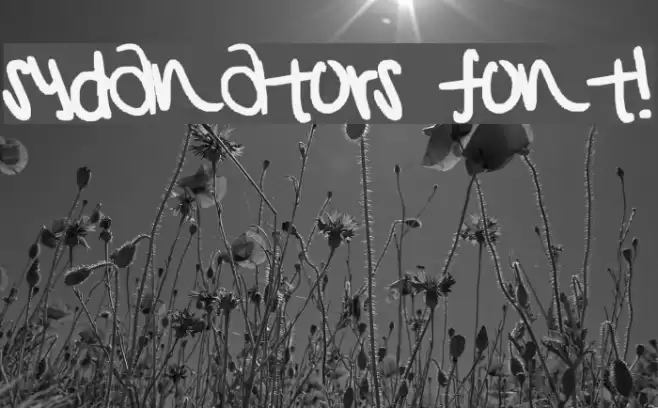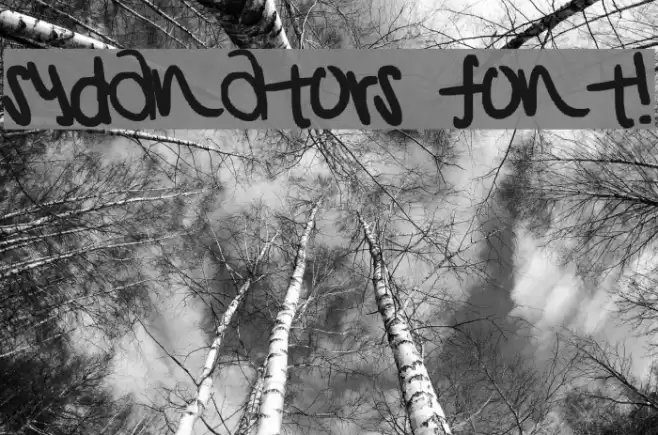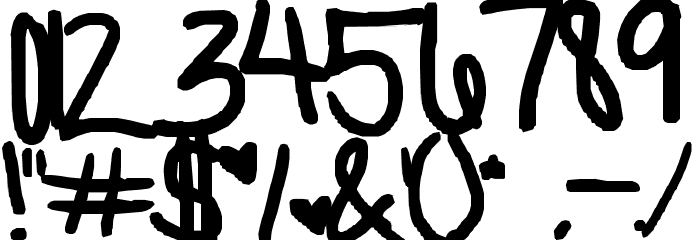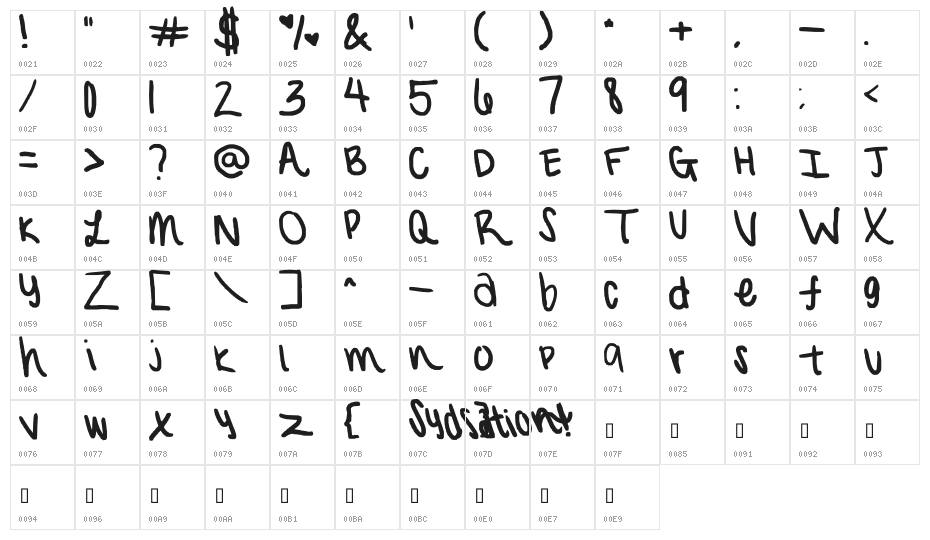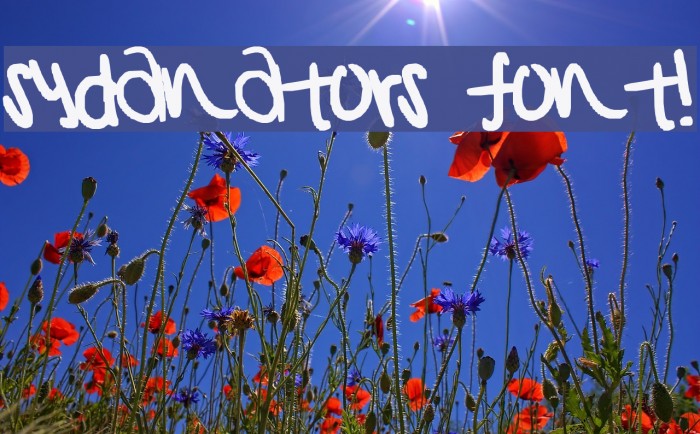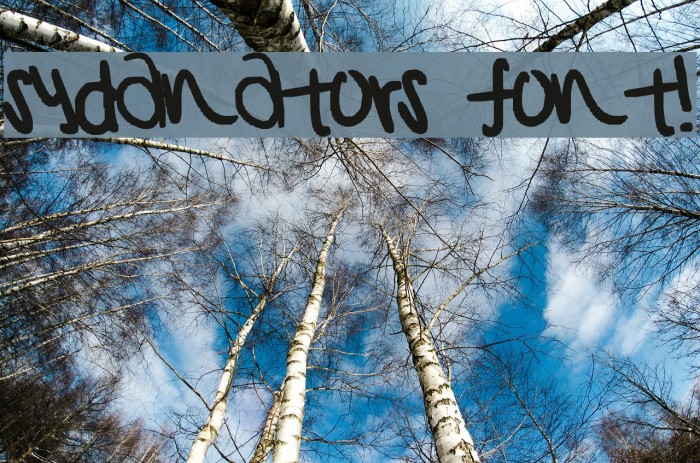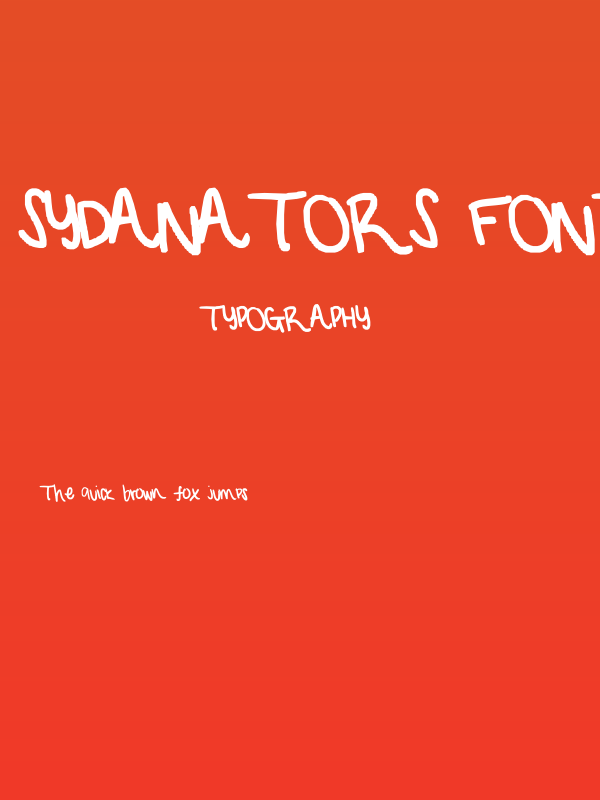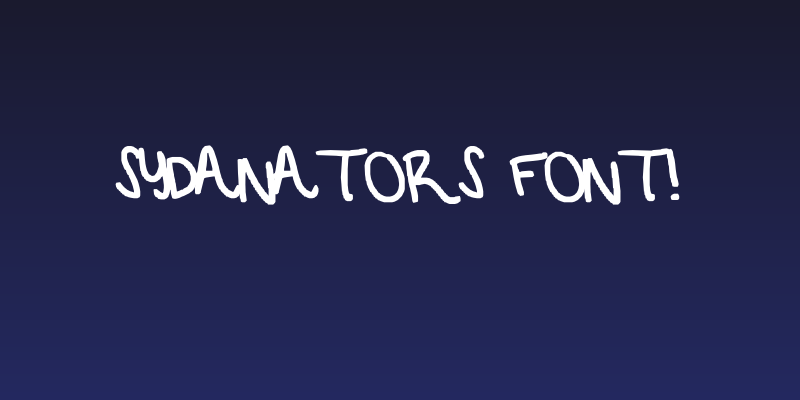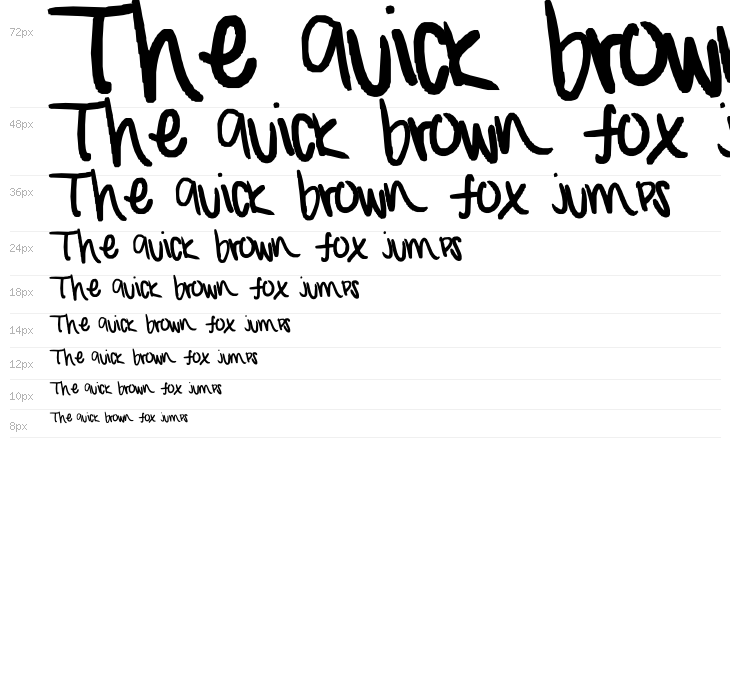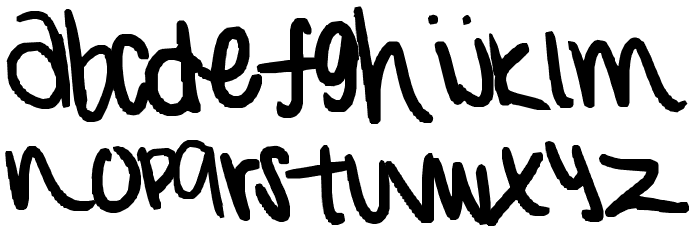
sydanators font! Font
sydanators font! Description
This font exhibits a playful and informal handwritten style, characterized by its bold and expressive strokes. The letters are slightly irregular, adding a personal and casual touch. The uppercase and lowercase letters maintain a consistent flow, with rounded edges and a sense of movement. The numbers and special characters follow the same lively style, making the font suitable for creative and informal projects. Its boldness ensures readability while maintaining a unique aesthetic that stands out.
A bold, playful handwritten font with expressive strokes from Handwritten fonts.
- Proposed Projects: Ideal for greeting cards, children's books, playful branding, and social media graphics.
- Overall Style: Casual
- Use Case: Headlines, Logos, Informal Text